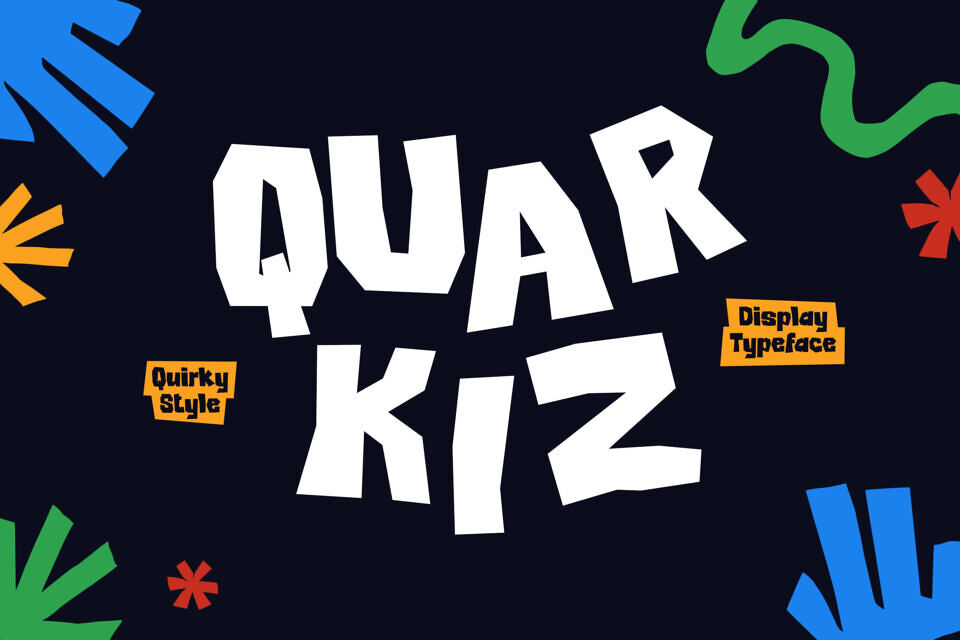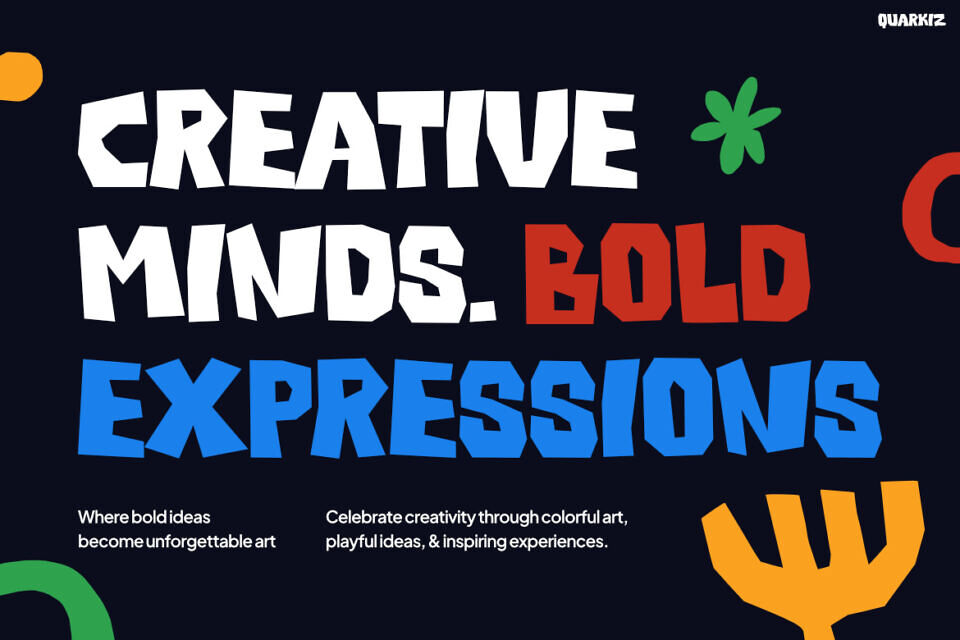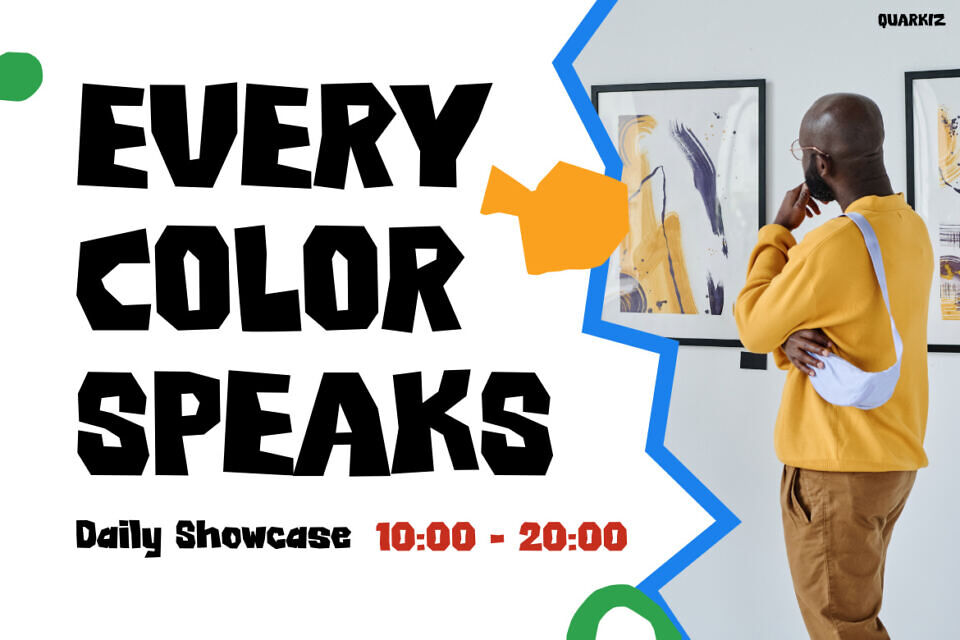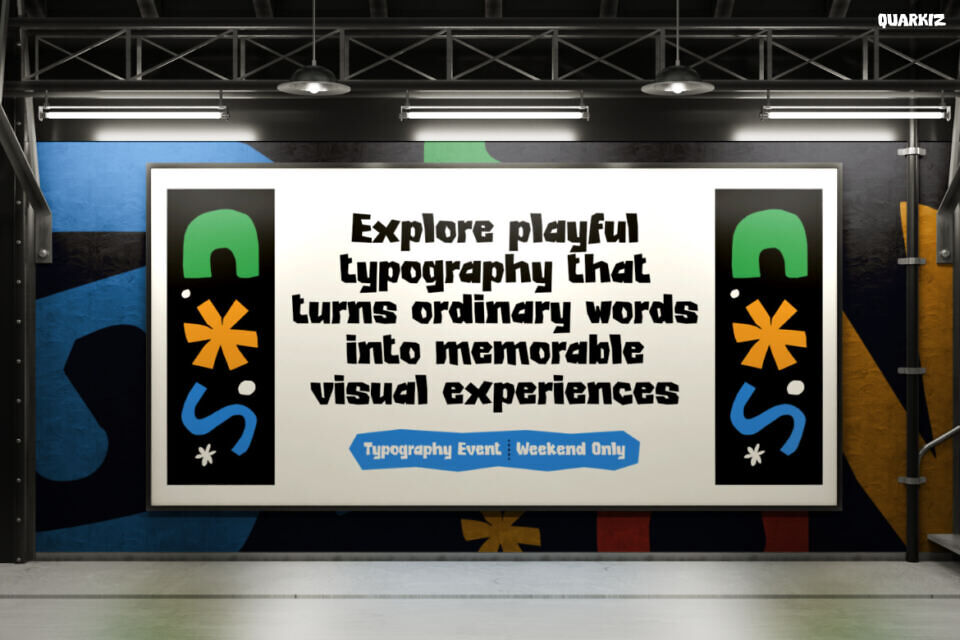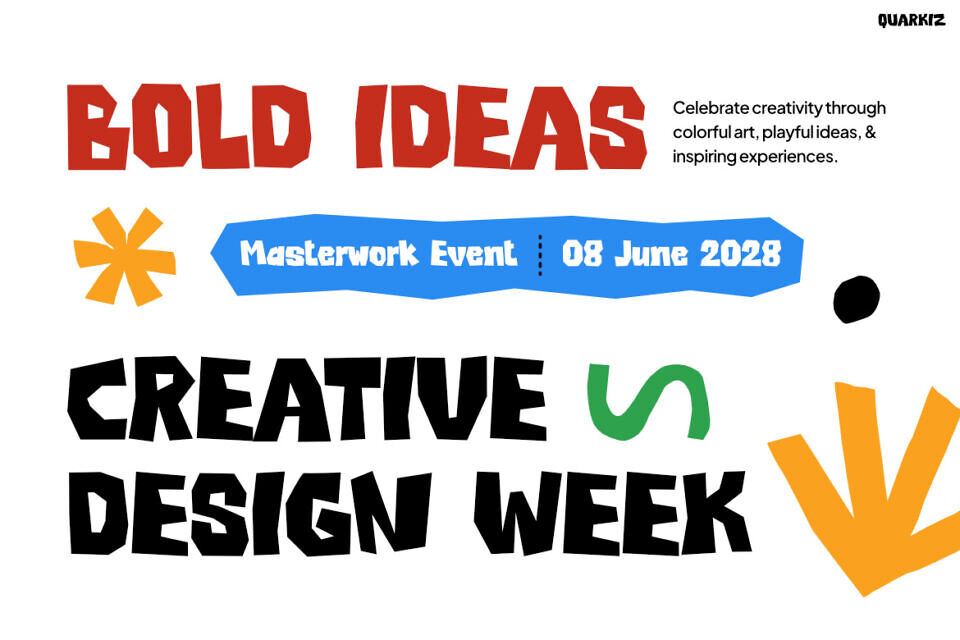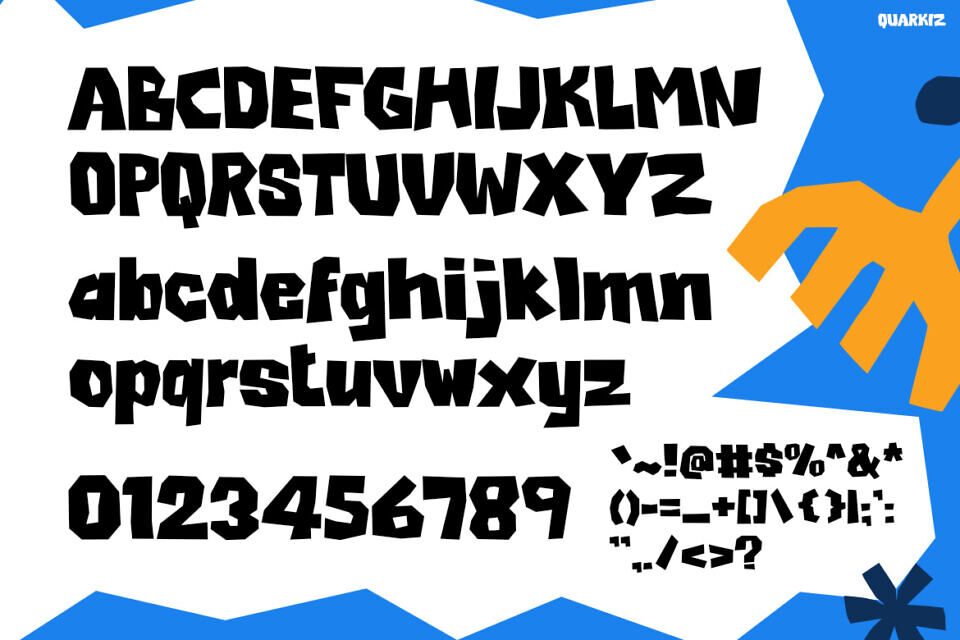
Quarkiz turns every word into a playful adventure with bold, quirky letterforms that overflow with personality. Rather than using predictable typography, Quarkiz mixes chunky shapes, handcrafted details, and joyful proportions to create a lively visual style that instantly sparks imagination.
Moreover, its energetic design fills every headline with excitement, while its friendly appearance keeps every message approachable. As a result, your projects look cheerful, expressive, and impossible to ignore.